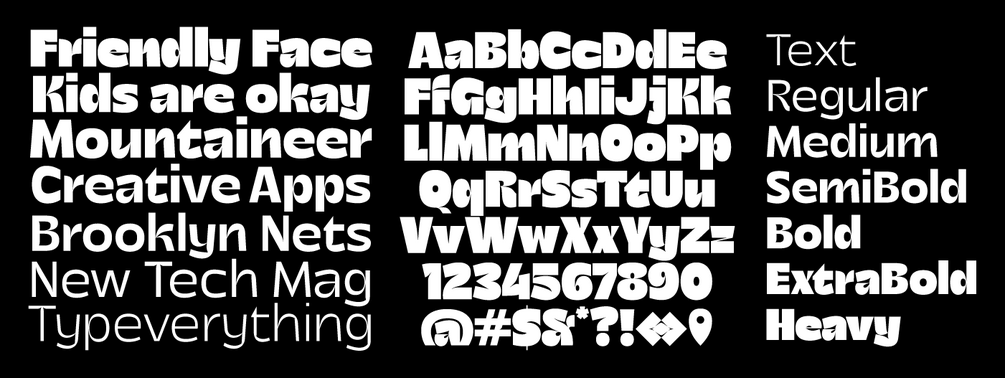
Berry
Berry is a new 8 weights typeface that brings back the fun in grotesk fonts. With a classic yet modern feel it will make your packshots/posters POP! It is available for Desktop or Web. The Variable file is included in the Full Family Desktop packs.